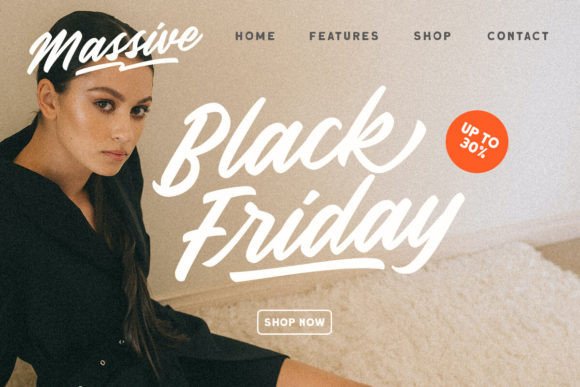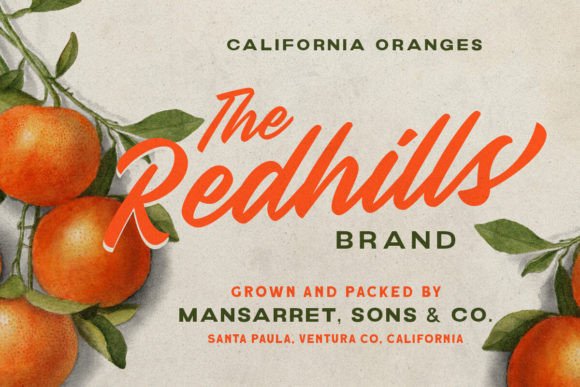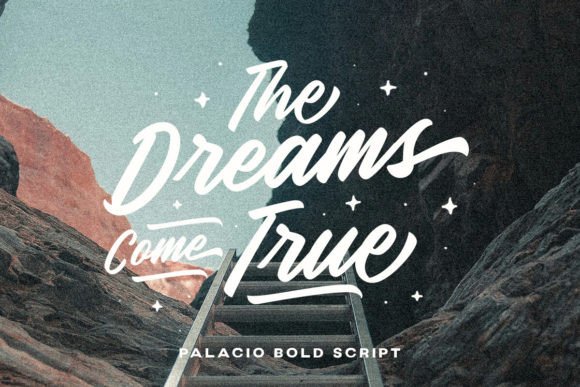
Introduction to Palacio Font
Imagine strolling through a grand estate, surrounded by lavish details and intricate designs. The Palacio Font is the perfect reflection of this opulence, a bold and elegant script that adds a touch of sophistication to any creative project. Whether you’re a seasoned designer or just starting out, this high-quality font is a valuable resource that will elevate your work to new heights.
With its transparent background and seamless integration capabilities, the Palacio Font is a design dream come true. Its versatility makes it perfect for a wide range of applications, from logos and signage to magazines, books, and even wedding invitations. And the best part? It’s available for free download, making it an accessible resource for designers of all levels.
Key Features of Palacio Font
- High-quality design: Palacio Font is a high-quality, elegant font ideal for creative projects, offering a sophisticated and luxurious feel.
- Unique design: This font features a unique blend of modern and traditional elements, making it a great design resource for various projects.
- Transparent background: The font’s transparent background allows for easy layering and customization, giving designers maximum flexibility.
- Perfect for luxury branding: Palacio Font’s luxurious feel and elegant design make it an ideal choice for luxury branding, high-end packaging, and premium marketing materials.
Honest Review: Palacio Font
I recently had the opportunity to work with Palacio Font, a high-quality design resource that’s perfect for creative projects. From its elegant and sophisticated look to its versatility, this font has been a game-changer for my design work.
Here are some of the things that work well with Palacio Font: ✨
- Unique and stylish design that adds a touch of elegance to any project
- Highly customizable, making it perfect for a wide range of creative applications
- Transparent background, making it easy to use with various design elements
However, there are some limitations to keep in mind: ⚠️
- Might not be suitable for projects that require a more playful or casual tone
Overall, I’m really impressed with Palacio Font. It’s a high-quality design resource that’s perfect for creative projects, and its free download makes it a great value for designers. I would definitely recommend it to anyone looking for a stylish and versatile font.
To get the most out of Palacio Font, experiment with different font sizes, colors, and layering techniques to achieve a unique and stylish look. You can also pair it with other design elements, such as images or shapes, to create a visually appealing design.
Palacio Font is perfect for creative projects that require a touch of elegance and sophistication, such as wedding invitations, business cards, and marketing materials. Its high quality and transparent background make it a valuable design resource for any project.